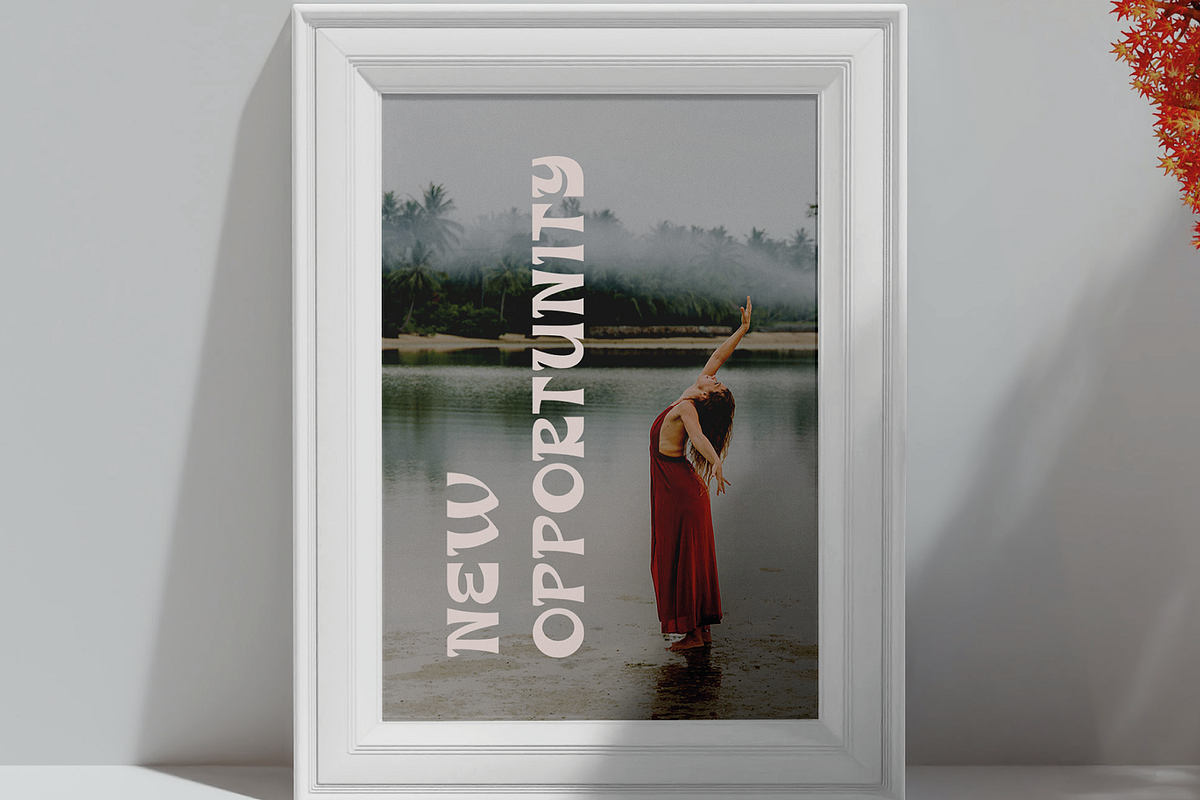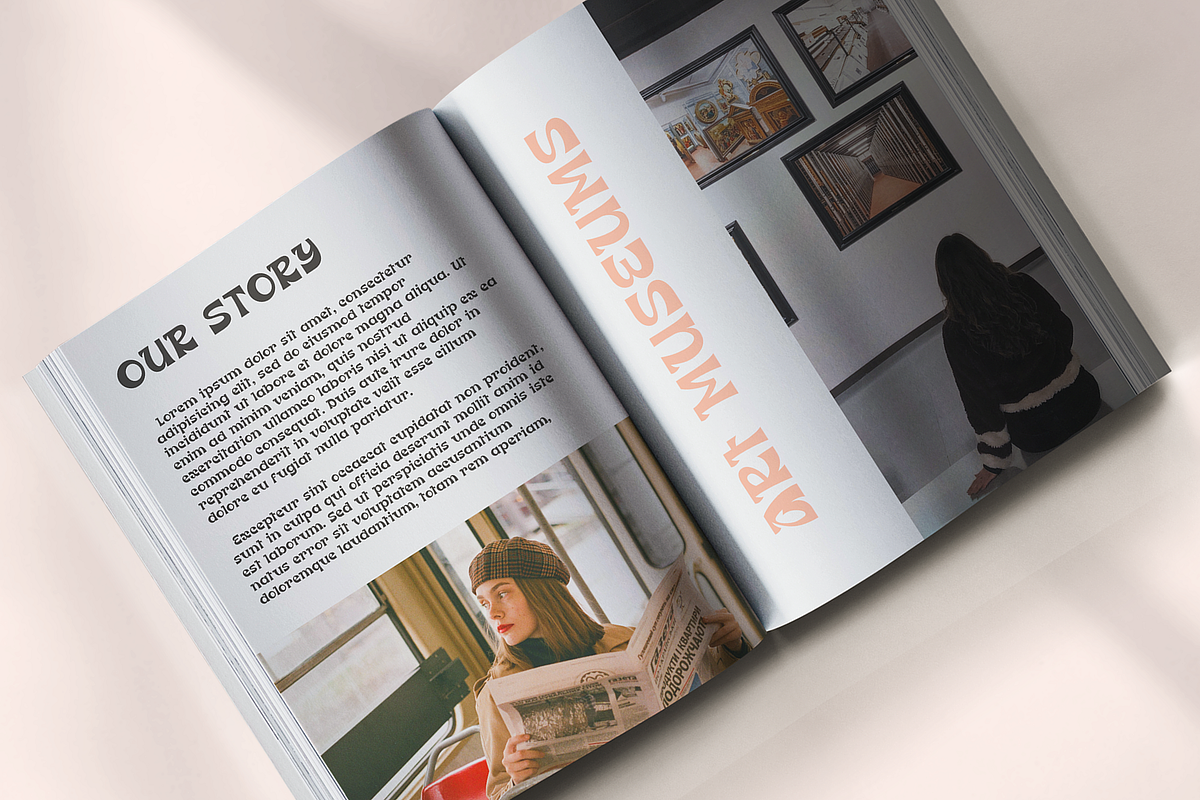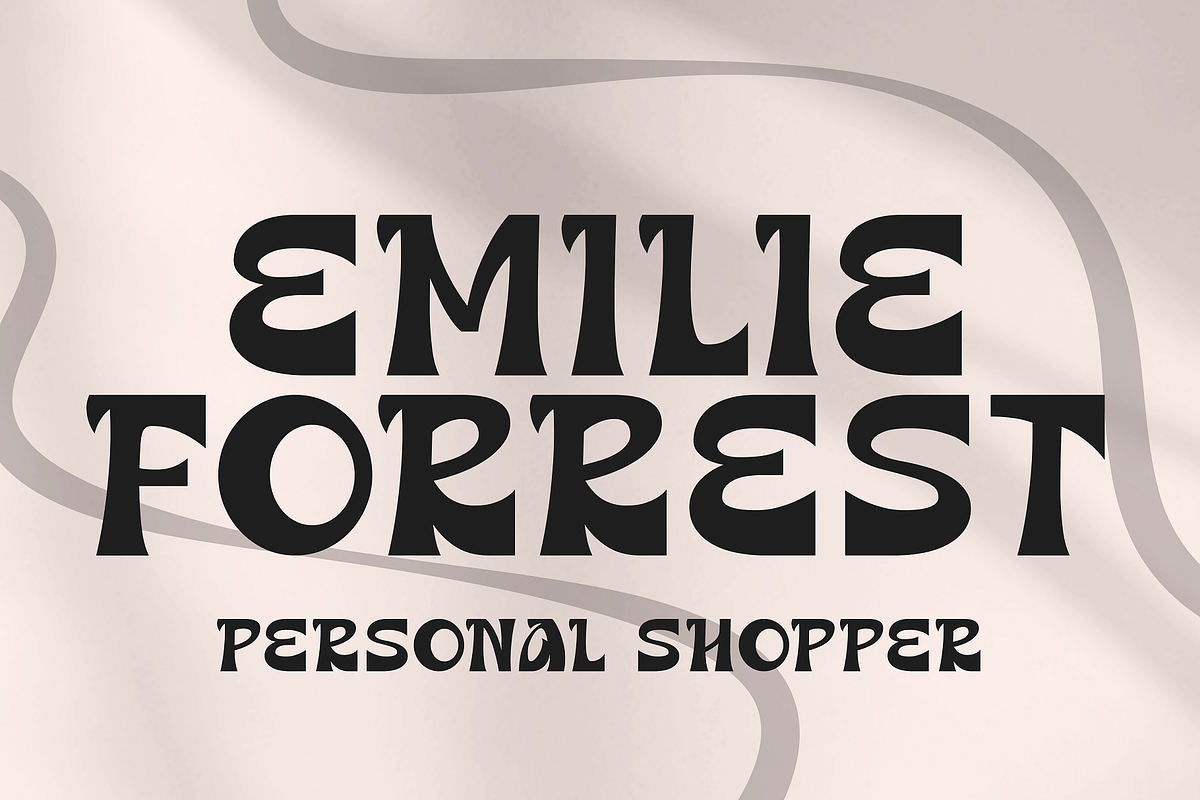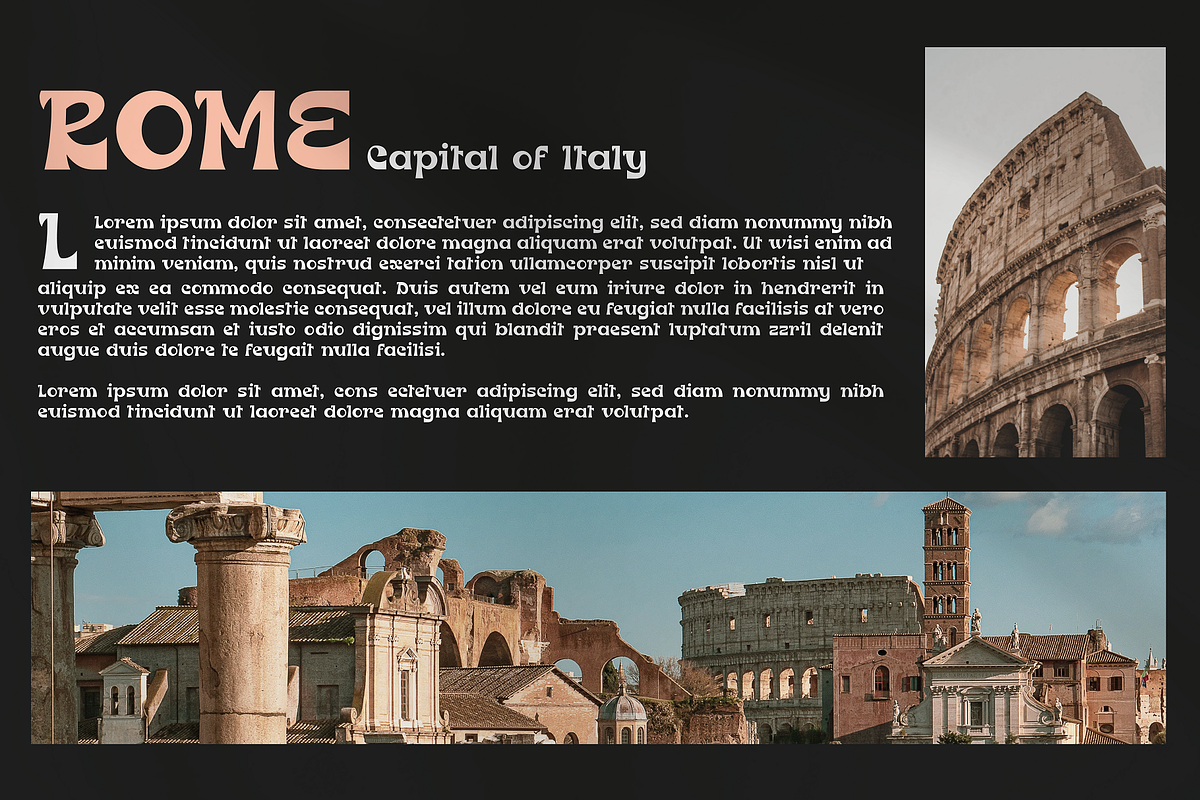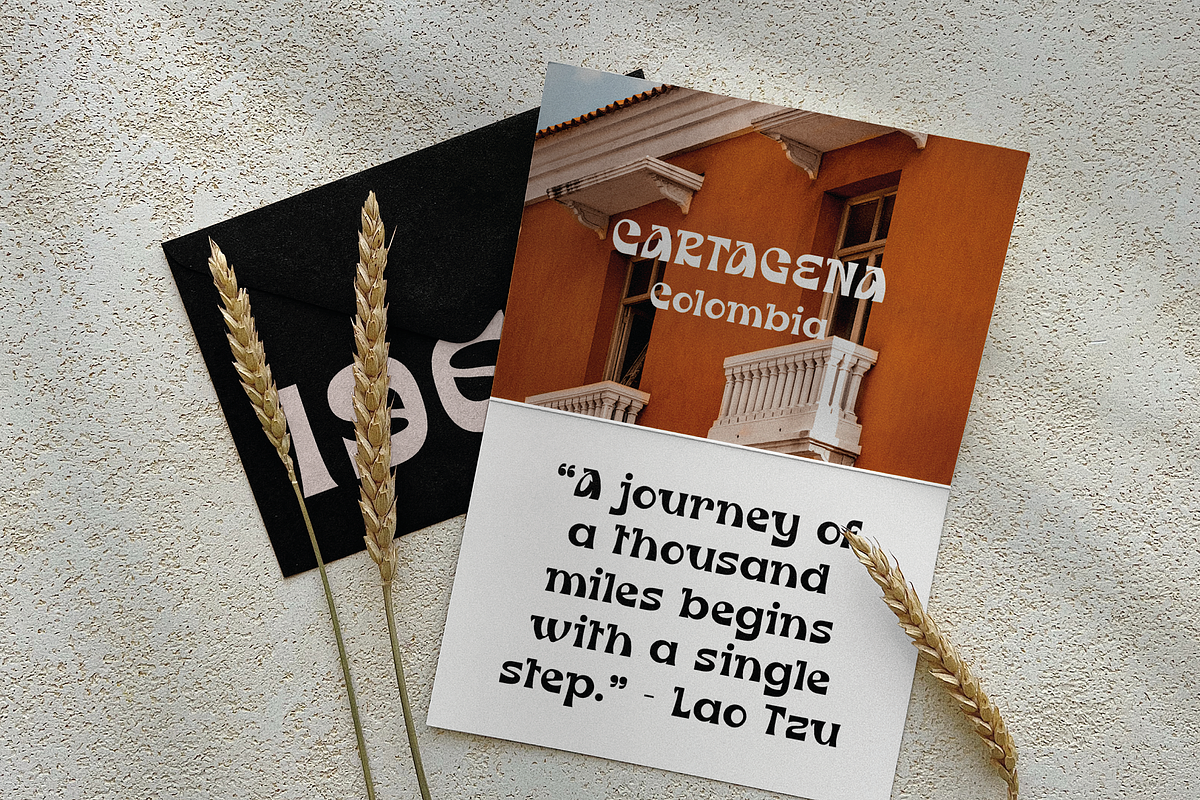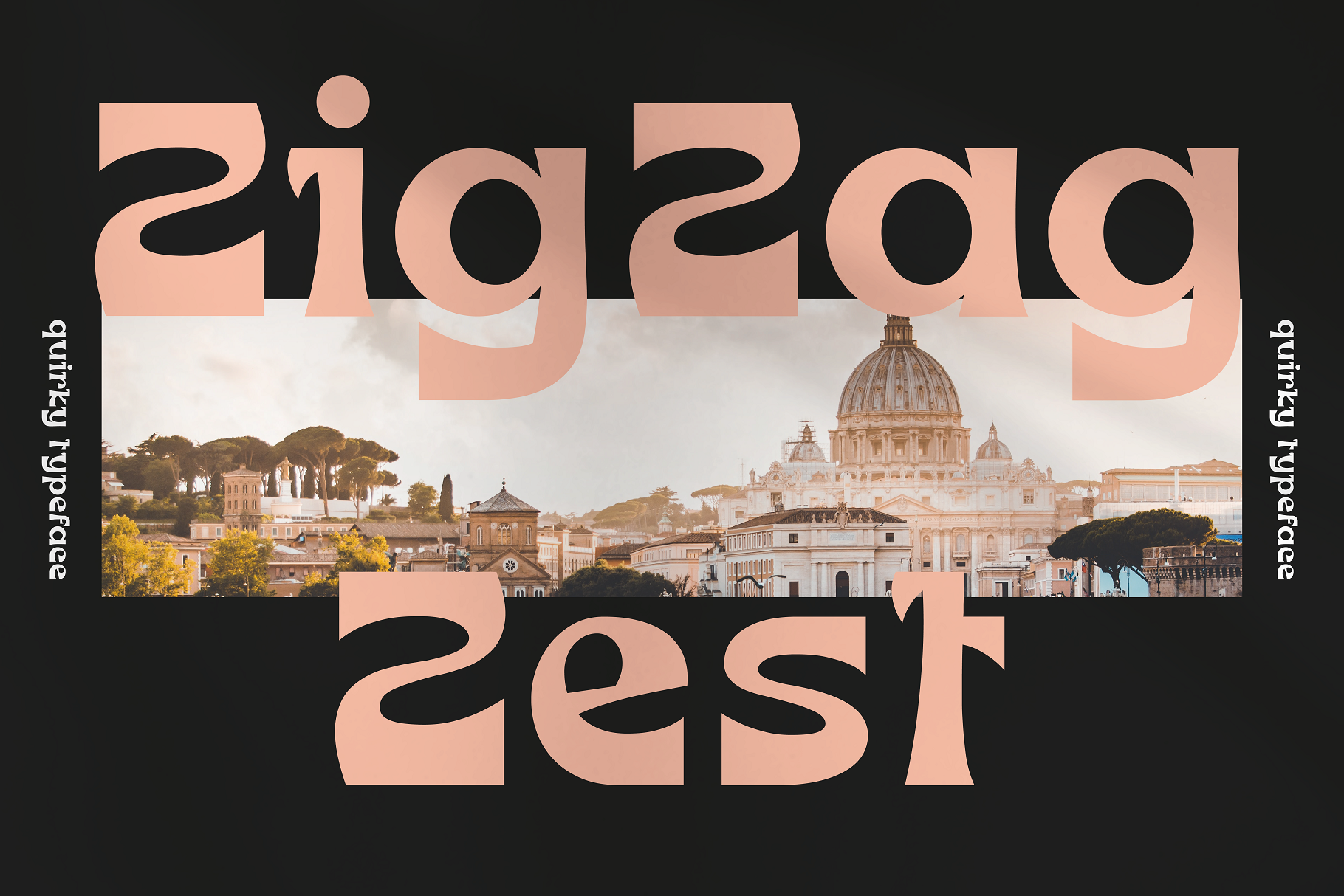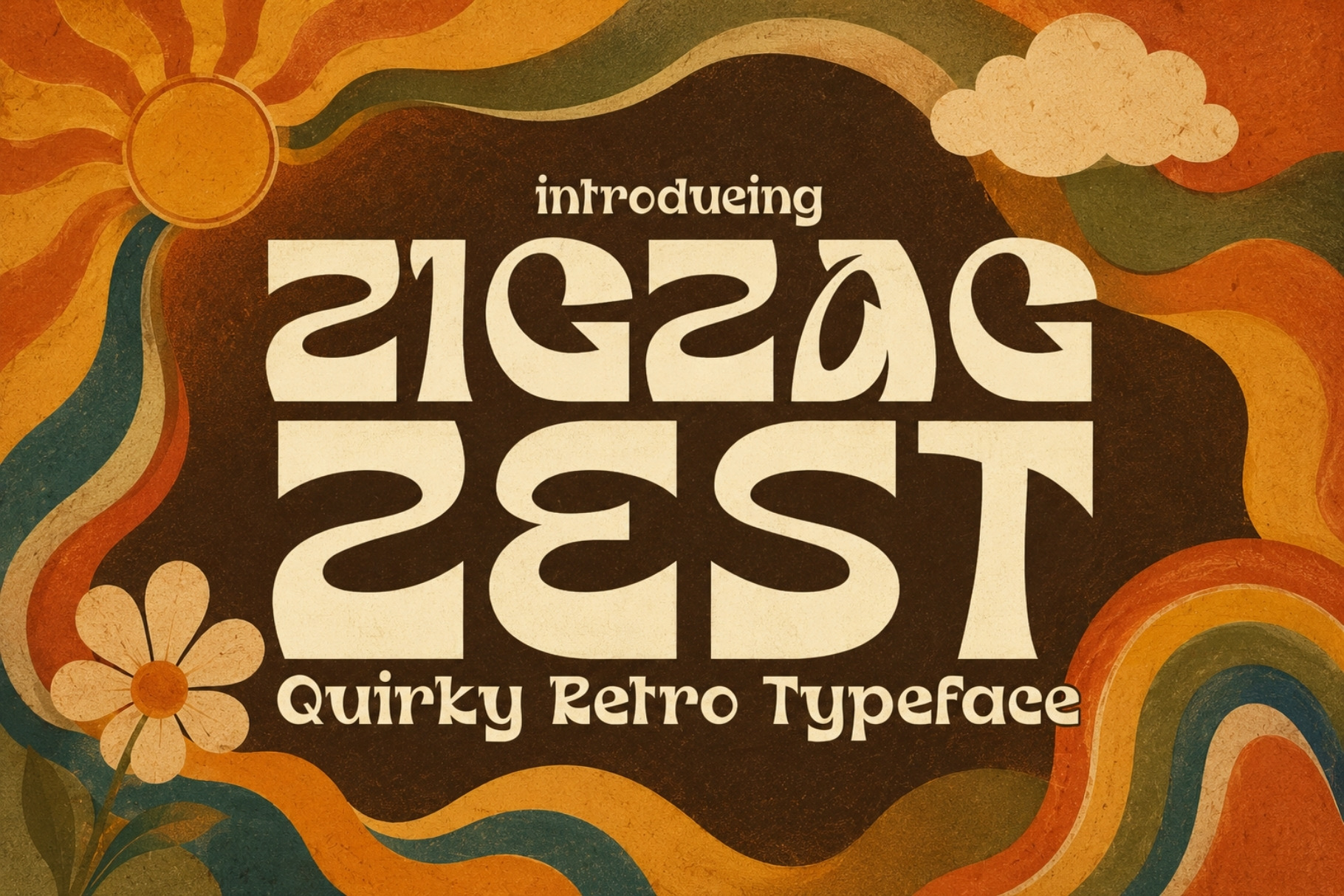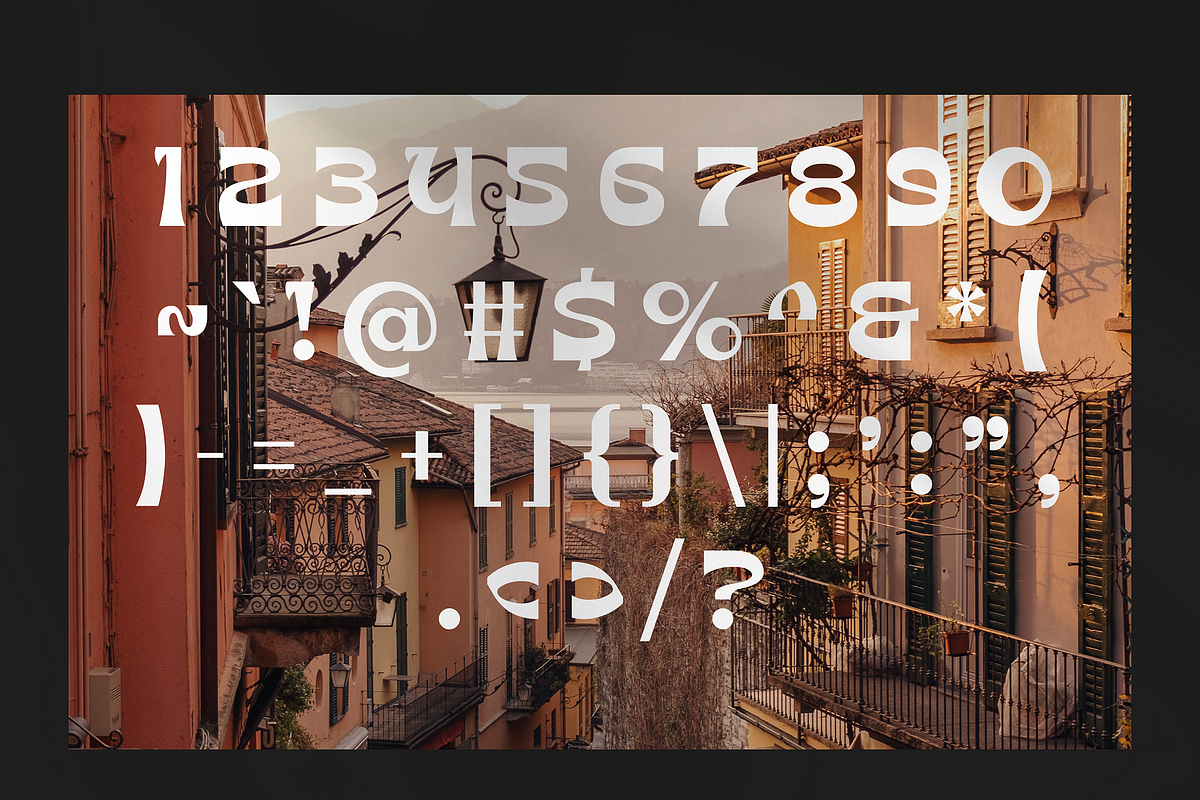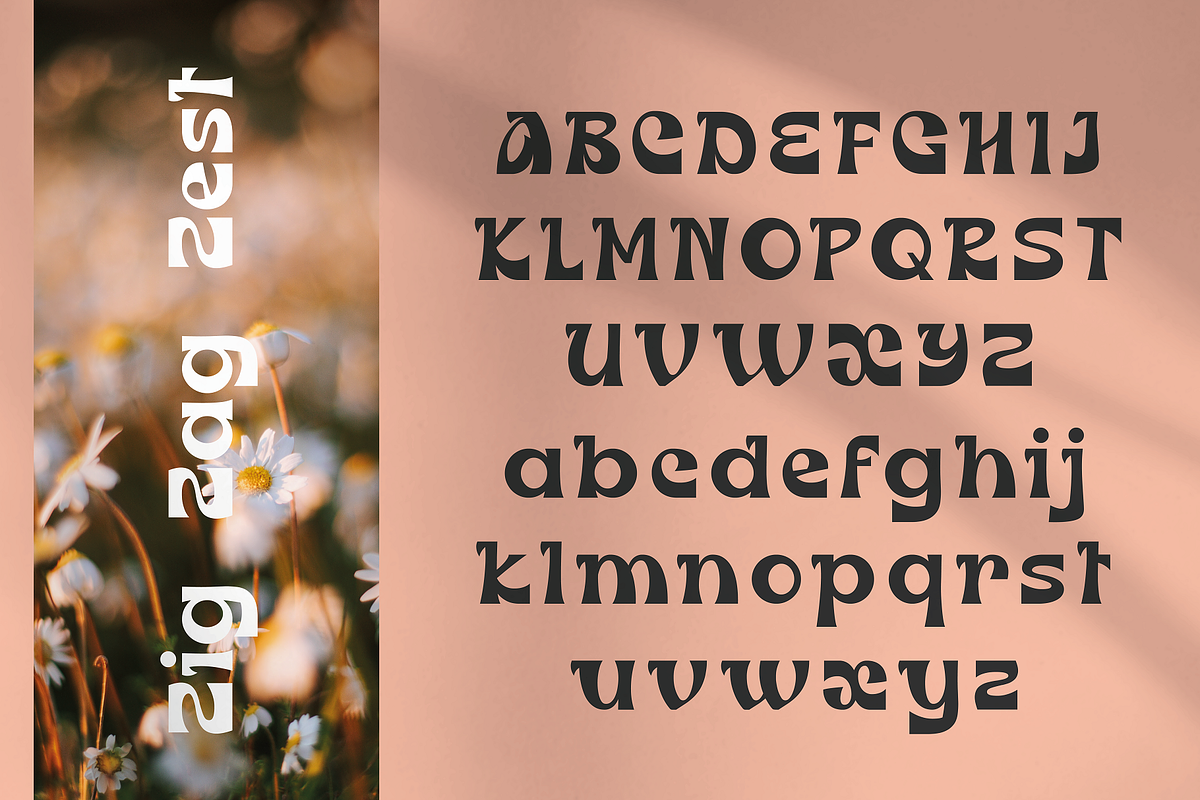
Zig Zag Zest - Quirky Typeface
Zig Zag Zest is a playful and lively typeface that exudes energy and excitement. Its letters are formed by a series of quirky lines, creating a dynamic and unique look that is sure to catch the eye.
The typeface is perfect for designs that aim to be fun, bold, quirky, and playful, as its unconventional style adds a touch of whimsy to any project.
Whether used for posters, packaging, or social media graphics, Zig Zag Zest is a font that will make your message stand out in a crowd.